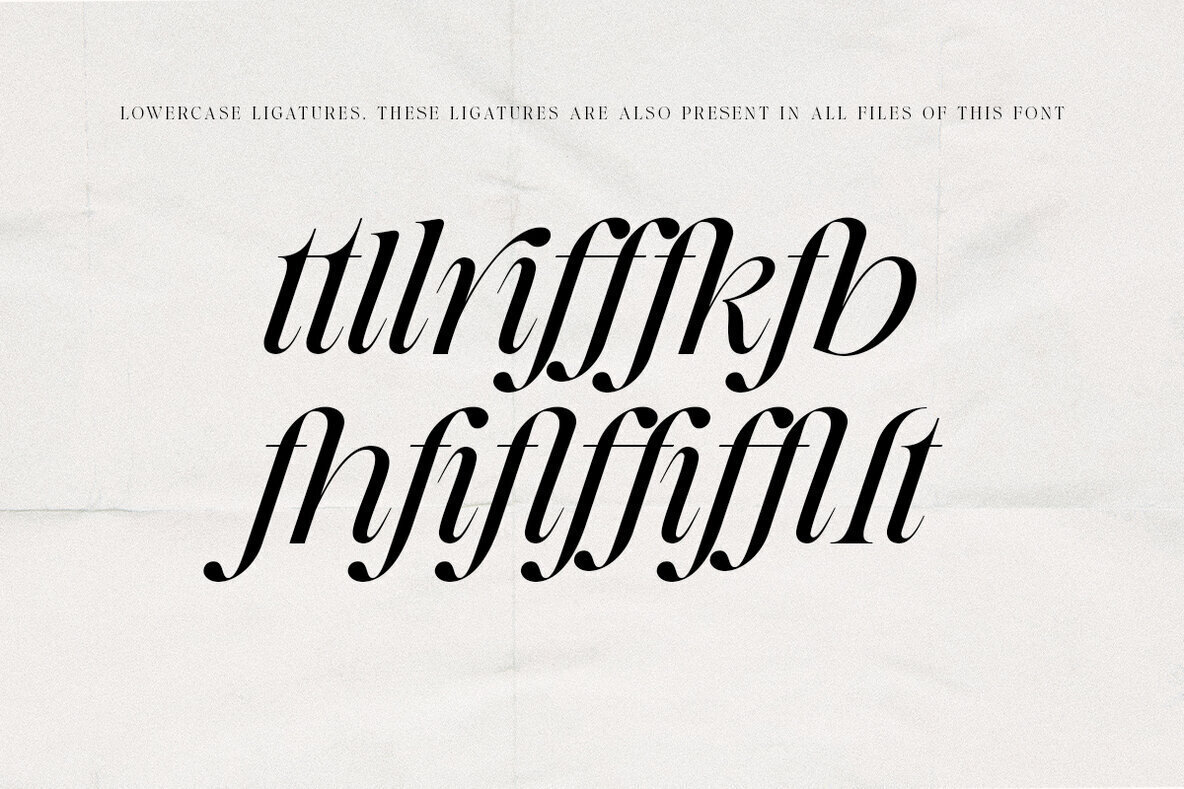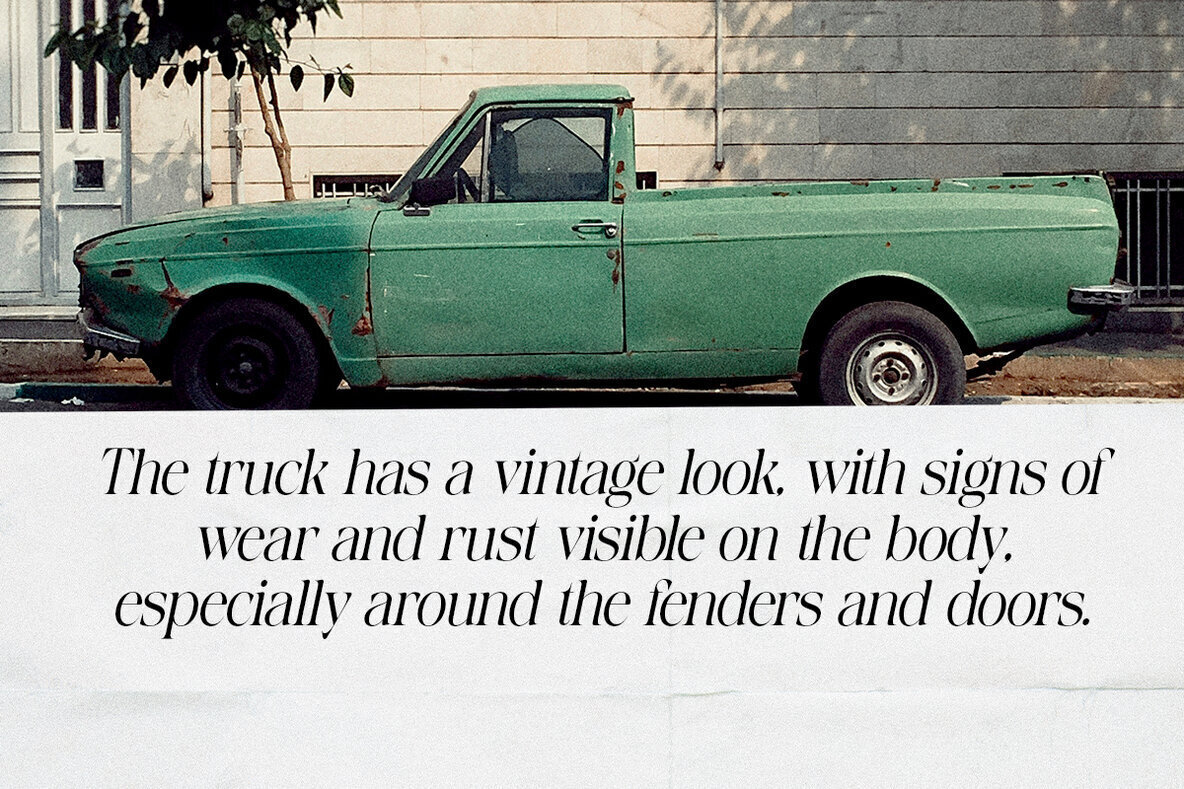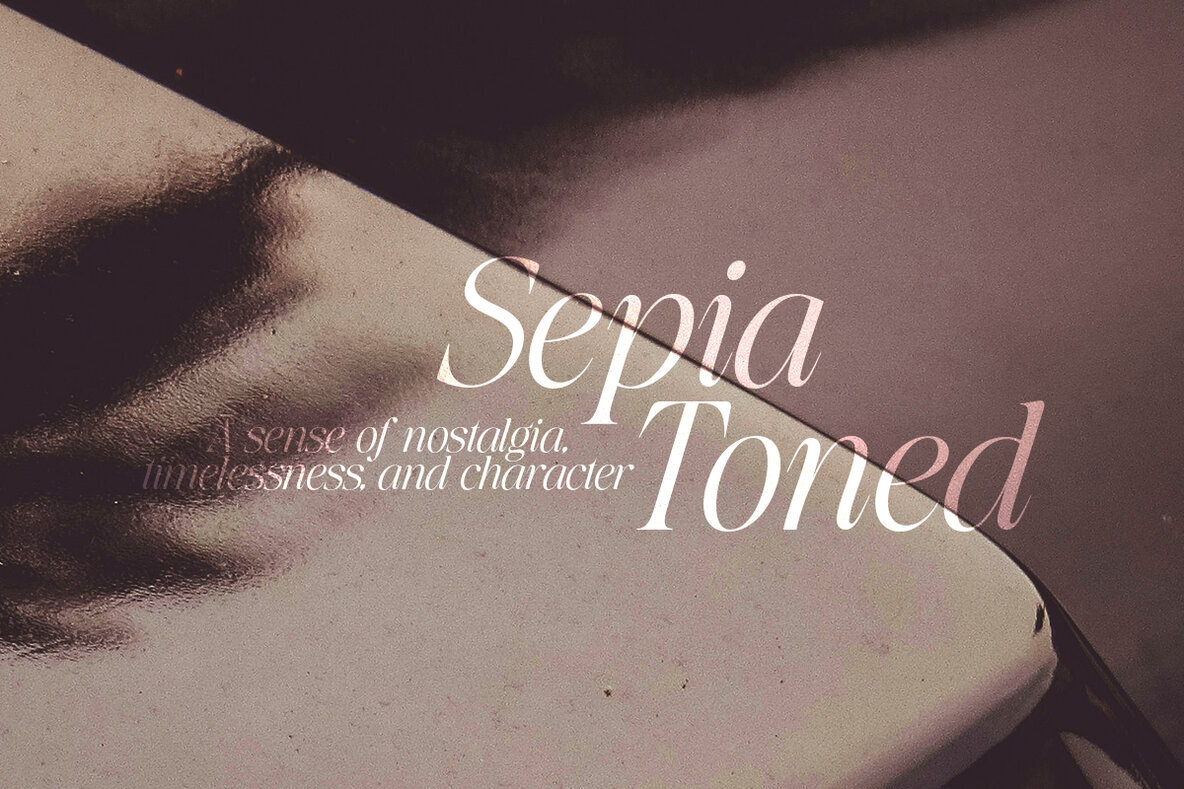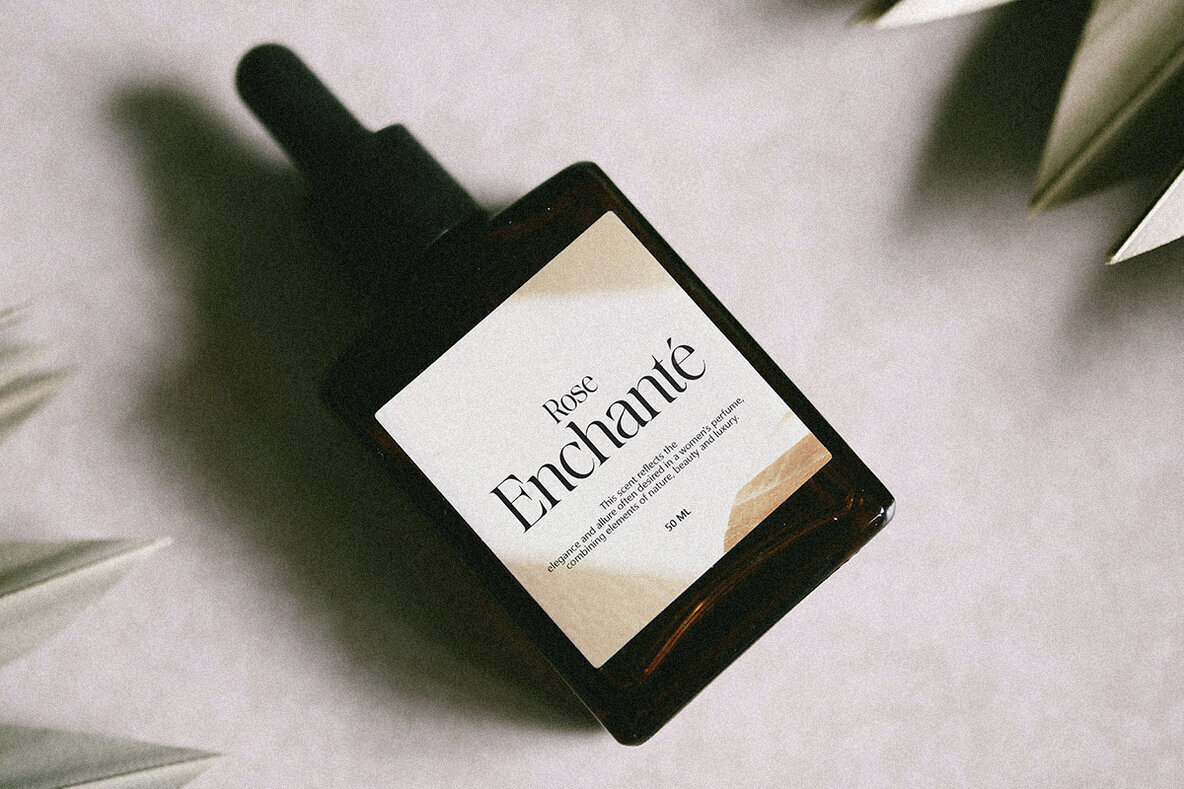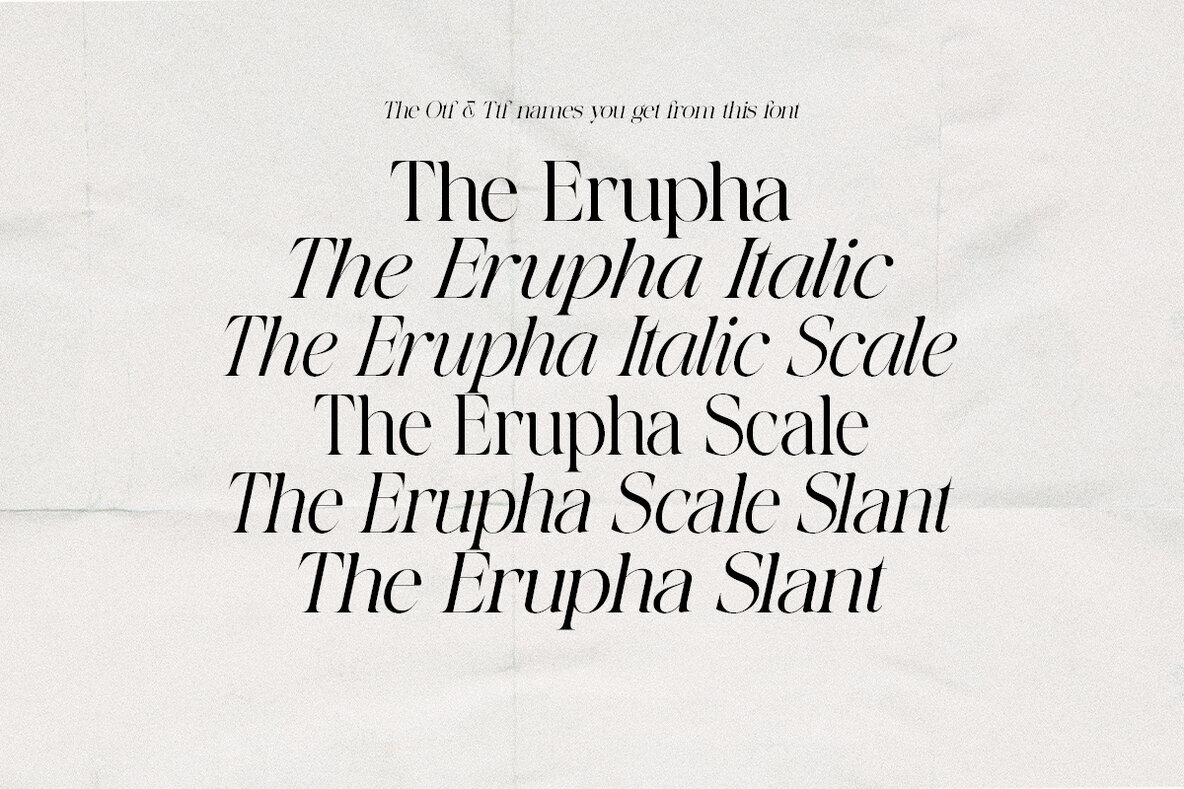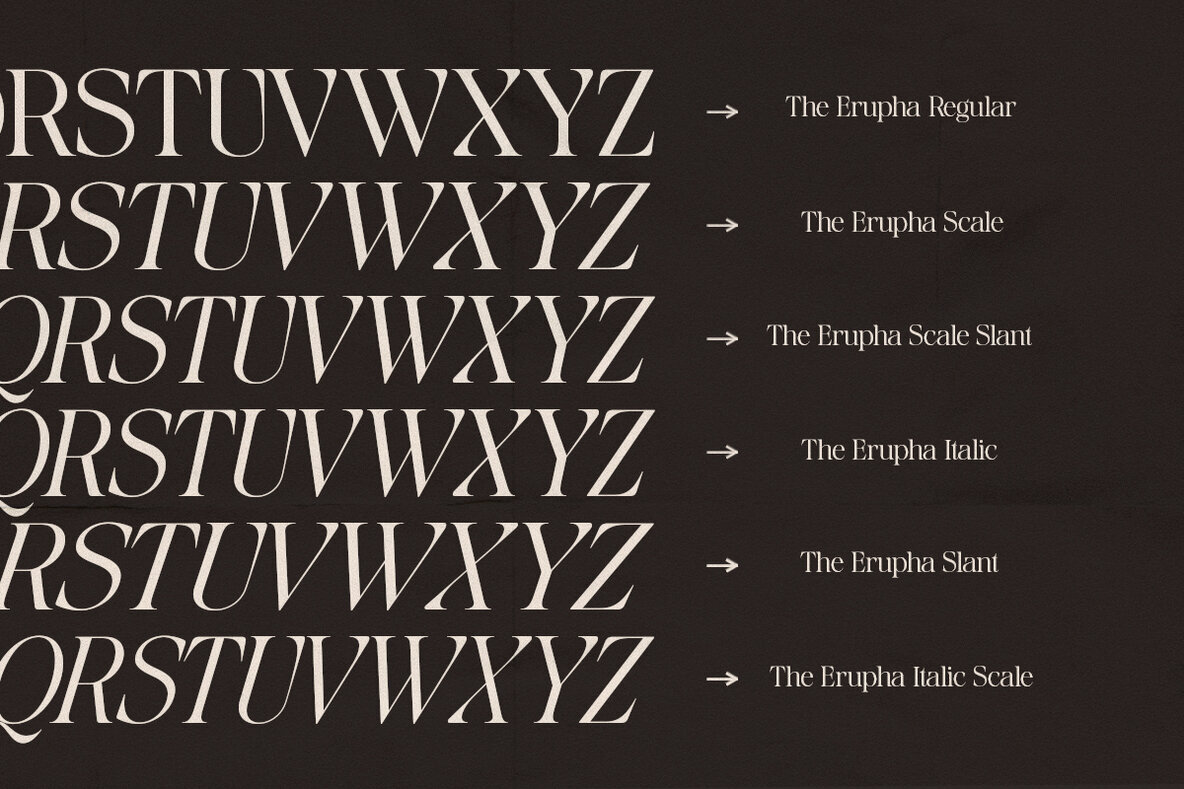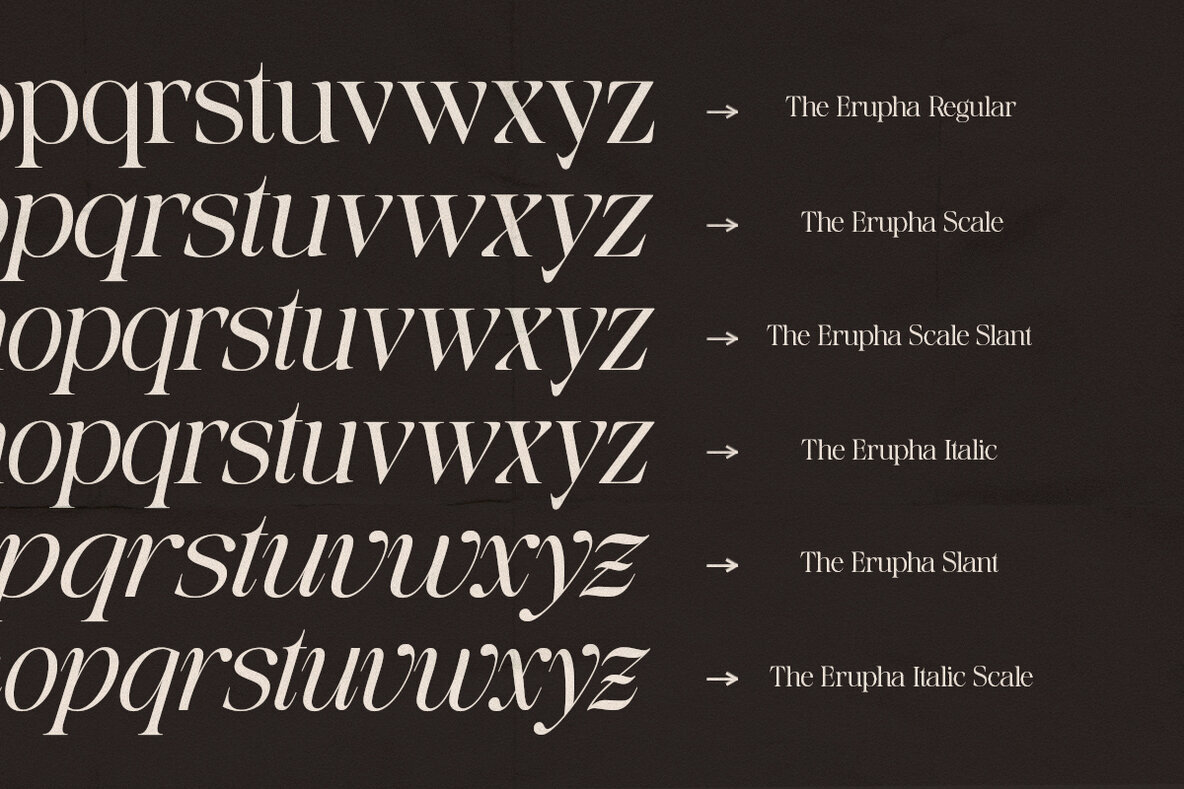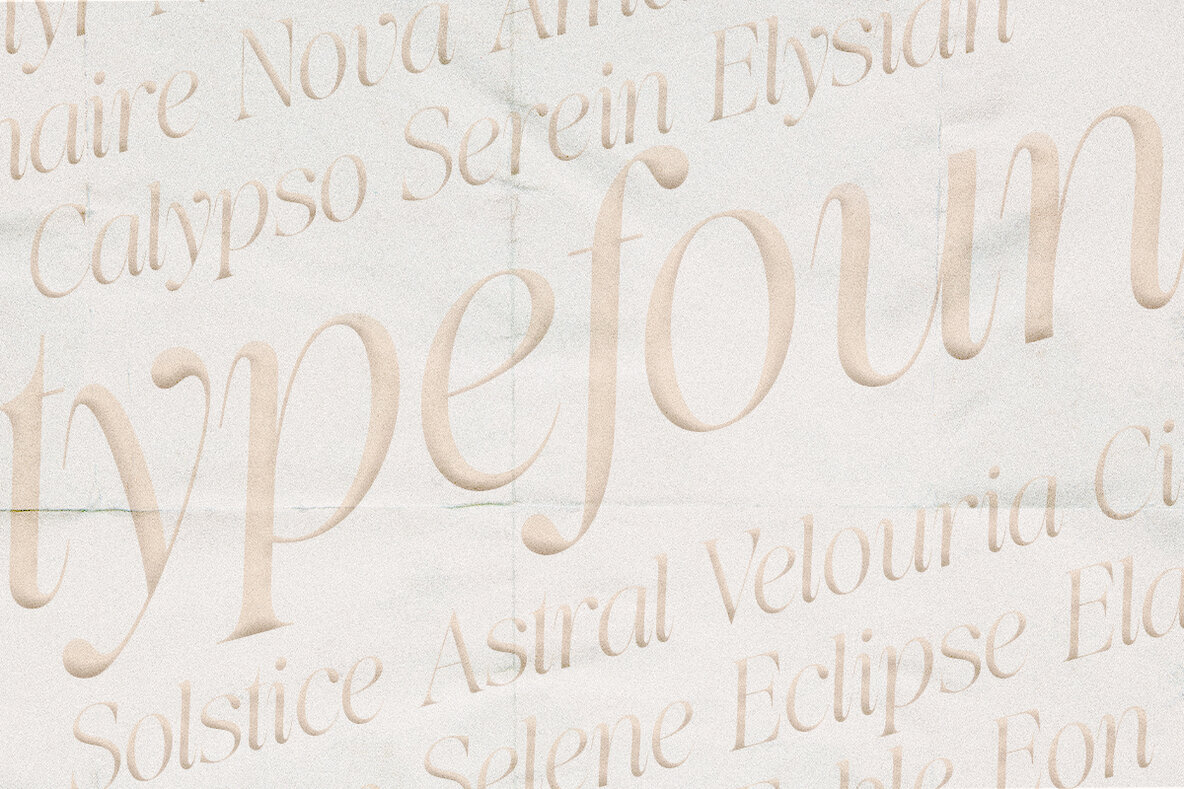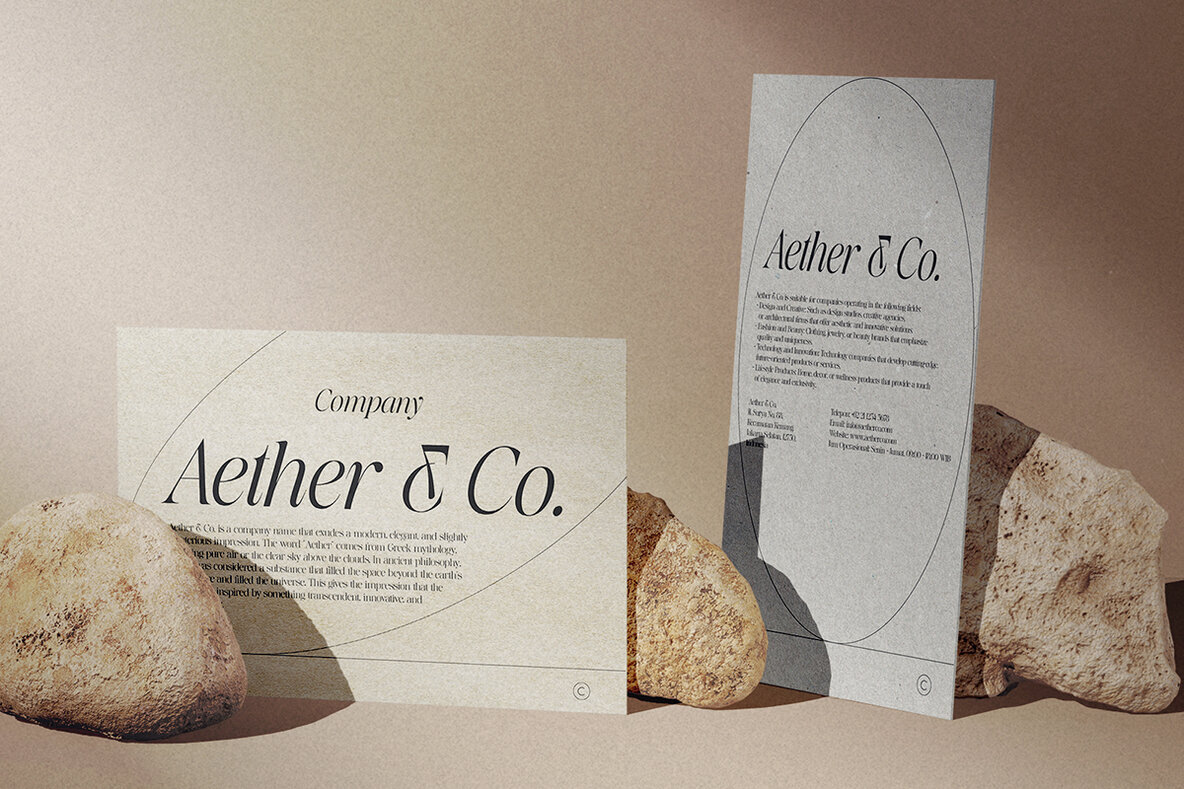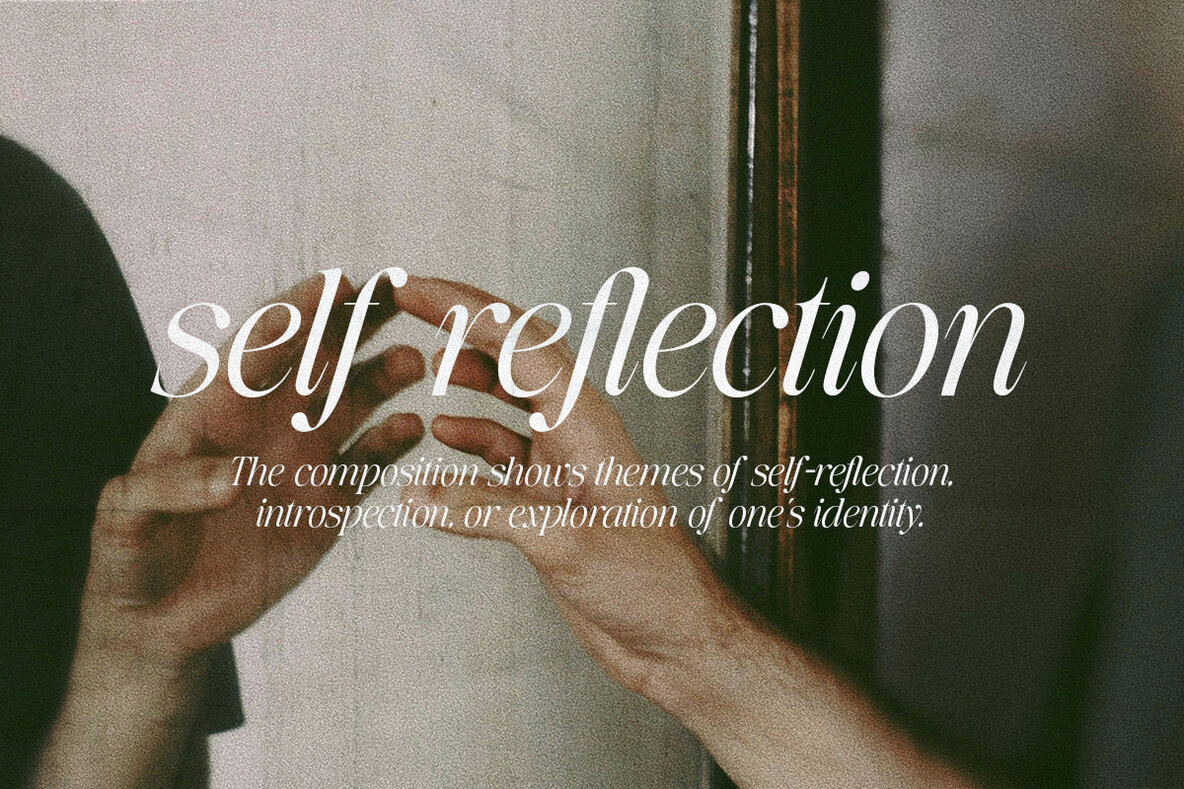
The Erupha Font
Introducing The Erupha: A Serif Typeface for Modern Aesthetics
Experience the charm of timeless elegance with The Erupha, a carefully crafted serif typeface blending classic appeal with contemporary style. Its high-contrast strokes and graceful curves create a captivating visual symphony that enhances any design. Perfect for sophisticated editorial layouts, striking brand identities, or engaging websites, The Erupha's versatility and refined beauty will make your work stand out. Each character has been meticulously designed to exude strength and refinement, from sculpted serifs to balanced proportions, making it a testament to the enduring power of classic typography.
Key features of The Erupha include effortless elegance through clean lines and balanced proportions, a collection of elegant ligatures for unique letter combinations, and powerful OpenType features for full typographic control. The typeface supports over 90 languages, ensuring your message reaches a global audience. The true italics are designed to complement upright characters, adding dynamic movement and visual interest. Ideal for editorial design, branding, web design, packaging, print, invitations, and stationery, The Erupha provides a classy touch to any project. Download today and explore a world of typographic possibilities.